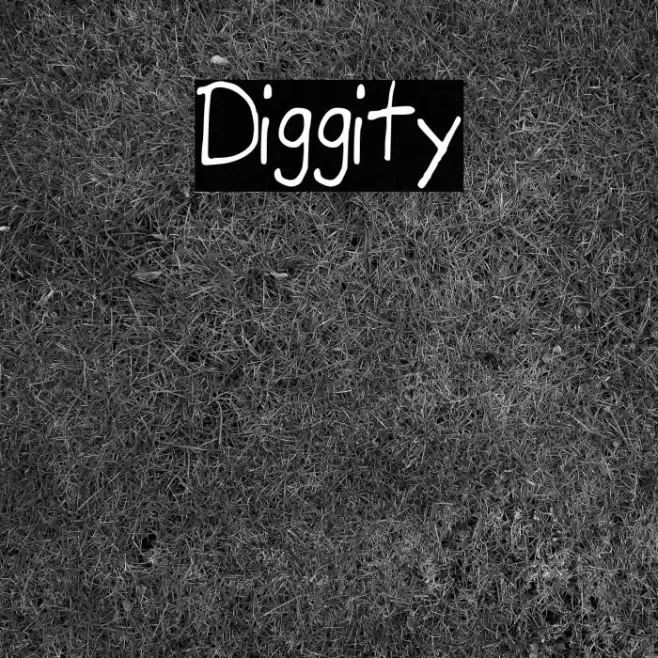
Diggity Font
Diggity Description
This font features a playful and casual handwritten style, characterized by its irregular strokes and slightly uneven baseline. The letters have a natural flow, mimicking the look of a quick, informal penmanship. The uppercase and lowercase letters maintain a consistent style, with rounded edges and a friendly appearance. Numbers and special characters are designed to match the overall aesthetic, making the font versatile for various informal applications. The font's unique charm lies in its ability to convey a sense of approachability and creativity, making it ideal for projects that require a personal touch.
A playful, handwritten font with a casual and friendly style from Handwritten fonts.
- Proposed Projects: Ideal for greeting cards, children's books, personal blogs, and creative branding projects.
- Overall Style: Casual, Playful
- Use Case: Headlines, Informal text, Creative projects